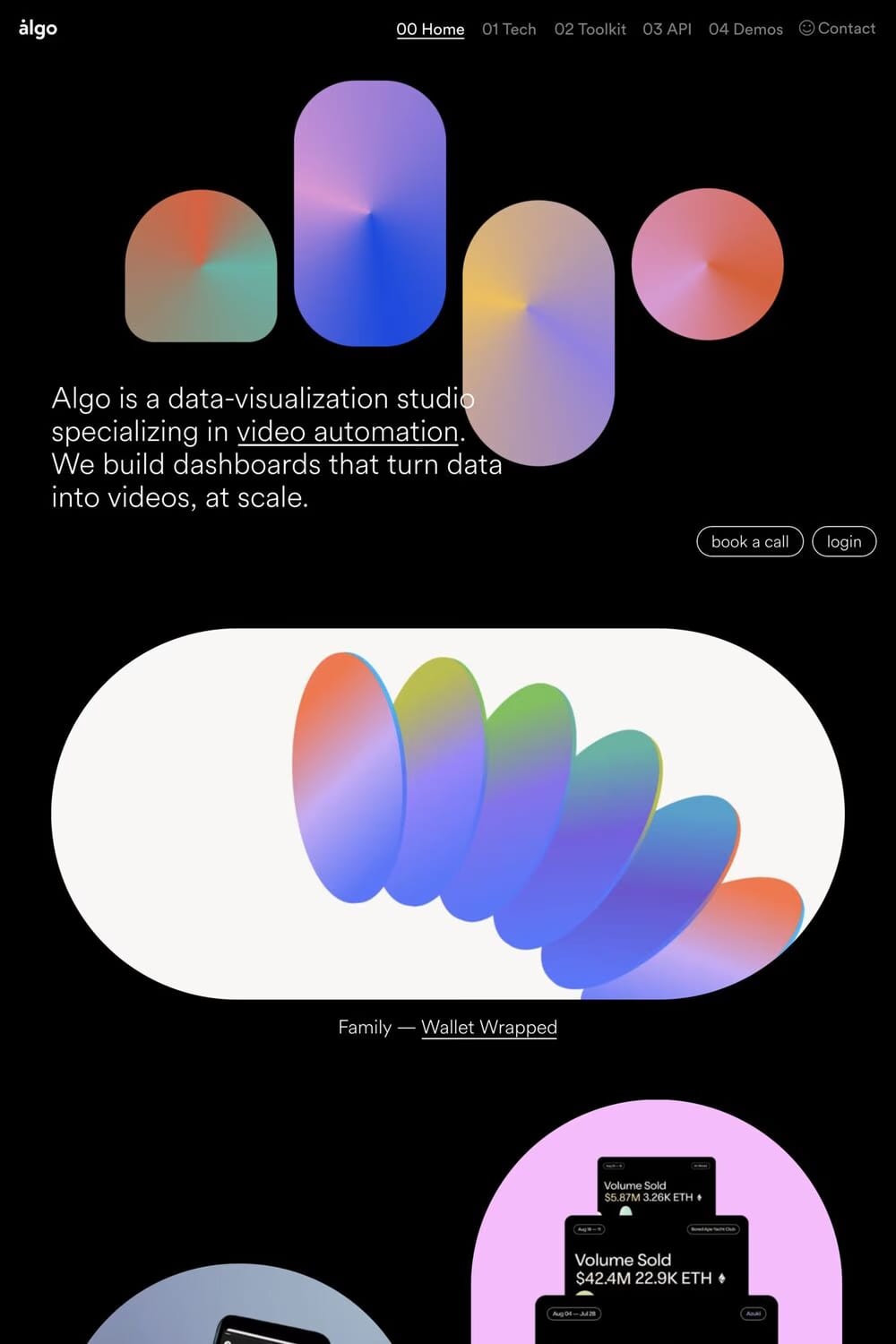
Circular Air Pro is a sans-serif typeface from Lineto.
LL Circular is a geometric sans-serif font family in eight weights. It is Laurenz Brunner’s second official release after the critically acclaimed, immensely popular LL Akkurat. LL Circular offers a fresh take on the genre of the geometric grotesk.